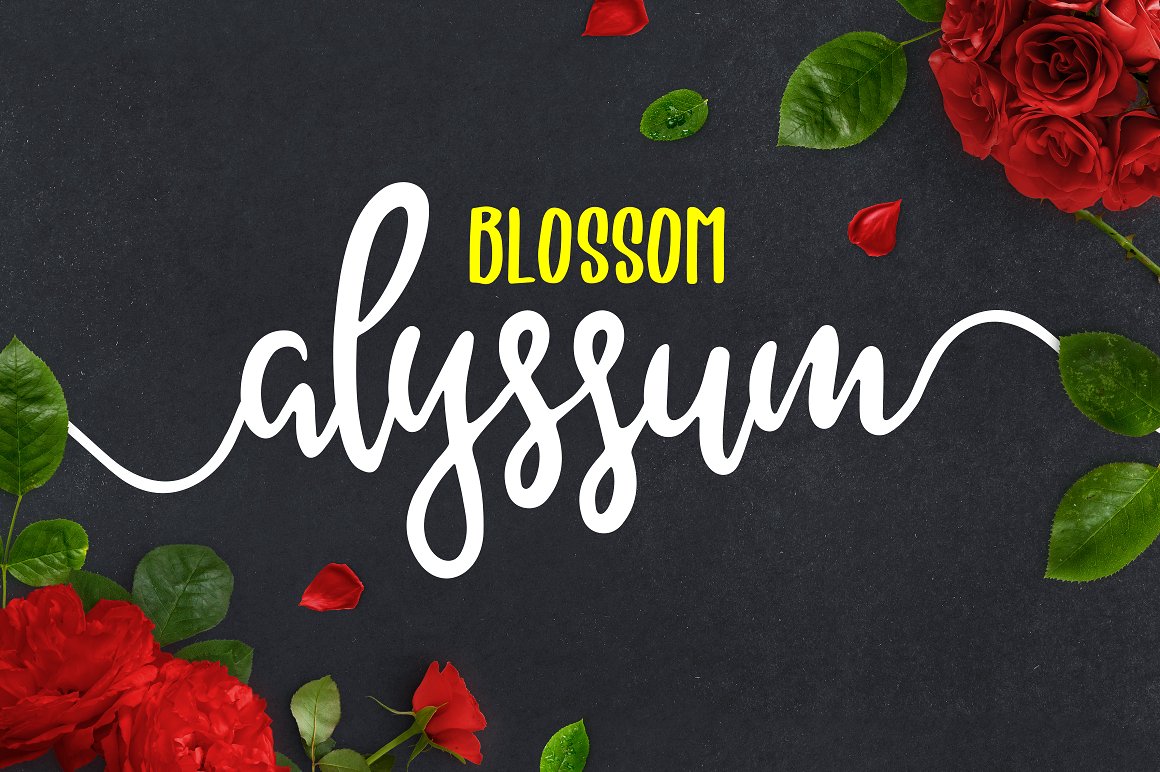
Alyssum Script Font
Introducing Alyssum Blossom , a beautiful dinamic duo typeface.. This combination consist of Handwritten Script as the main hero and Handwritten Sans as the sidekick. Perfectly match for your project needs.
| Classification: | Brush Fonts, Handwritten Fonts, Script Fonts |